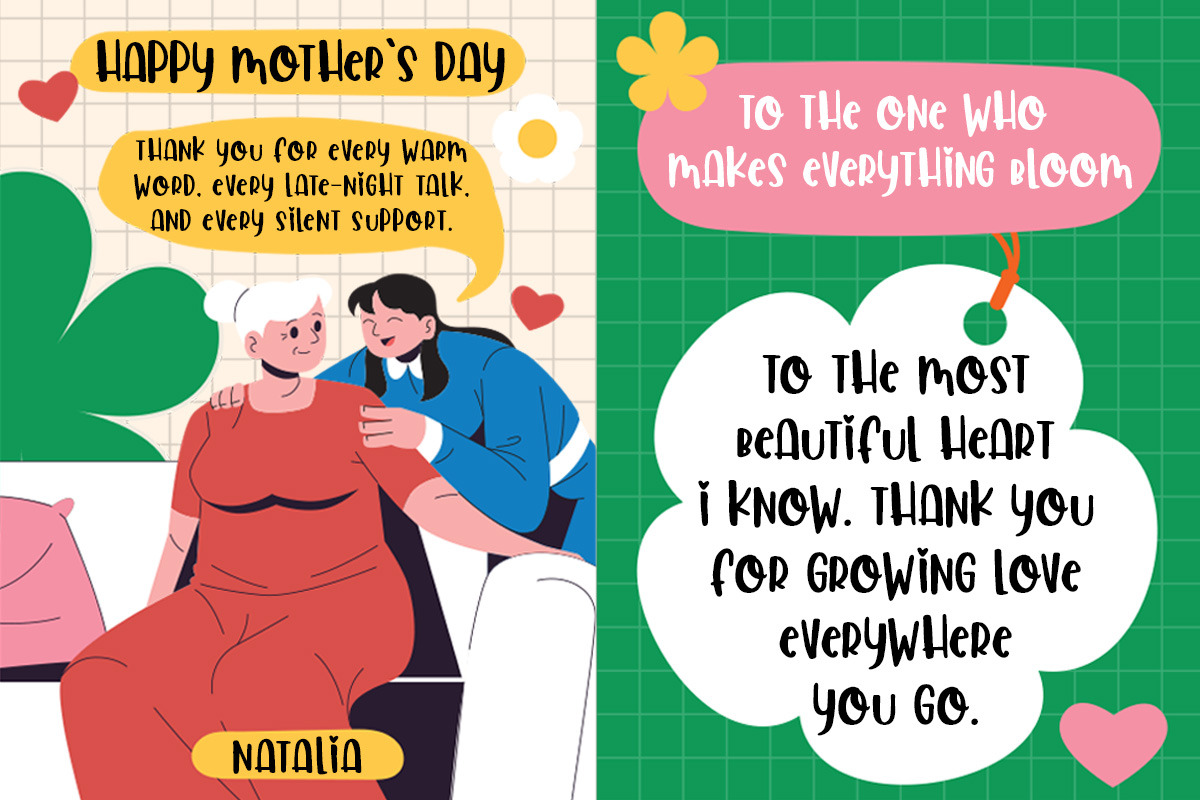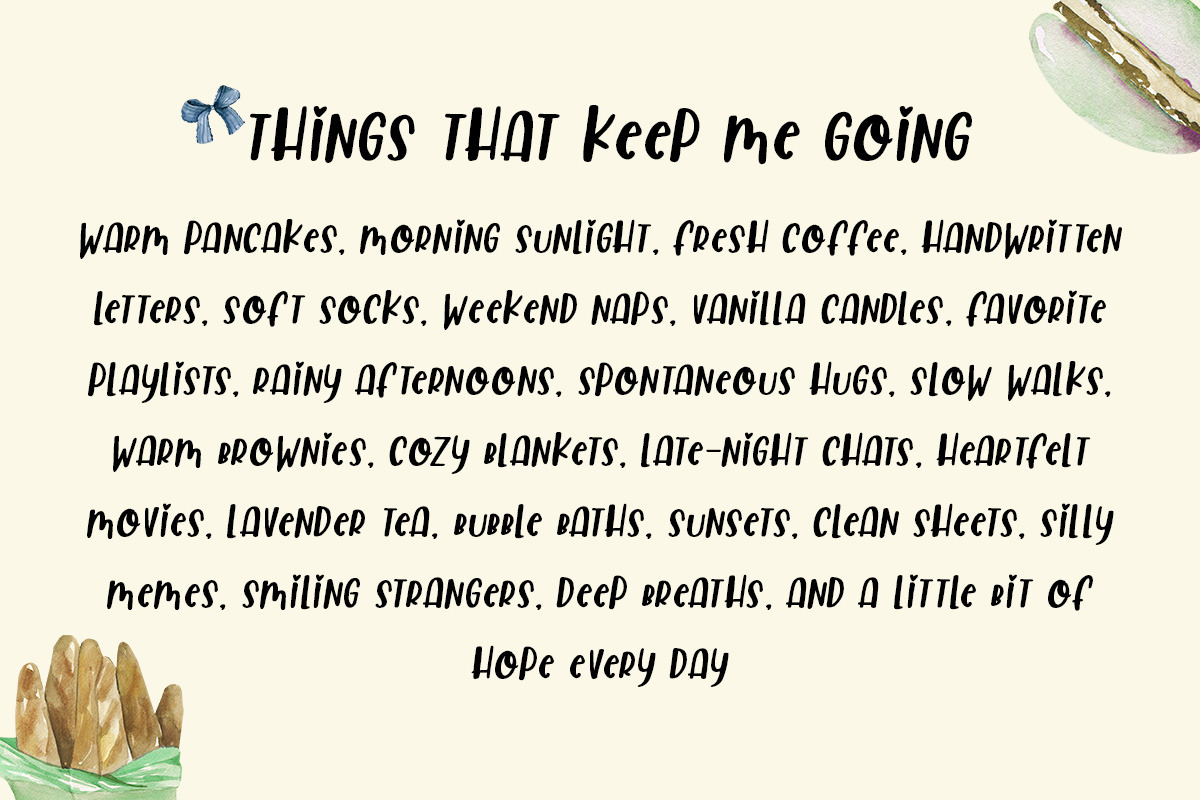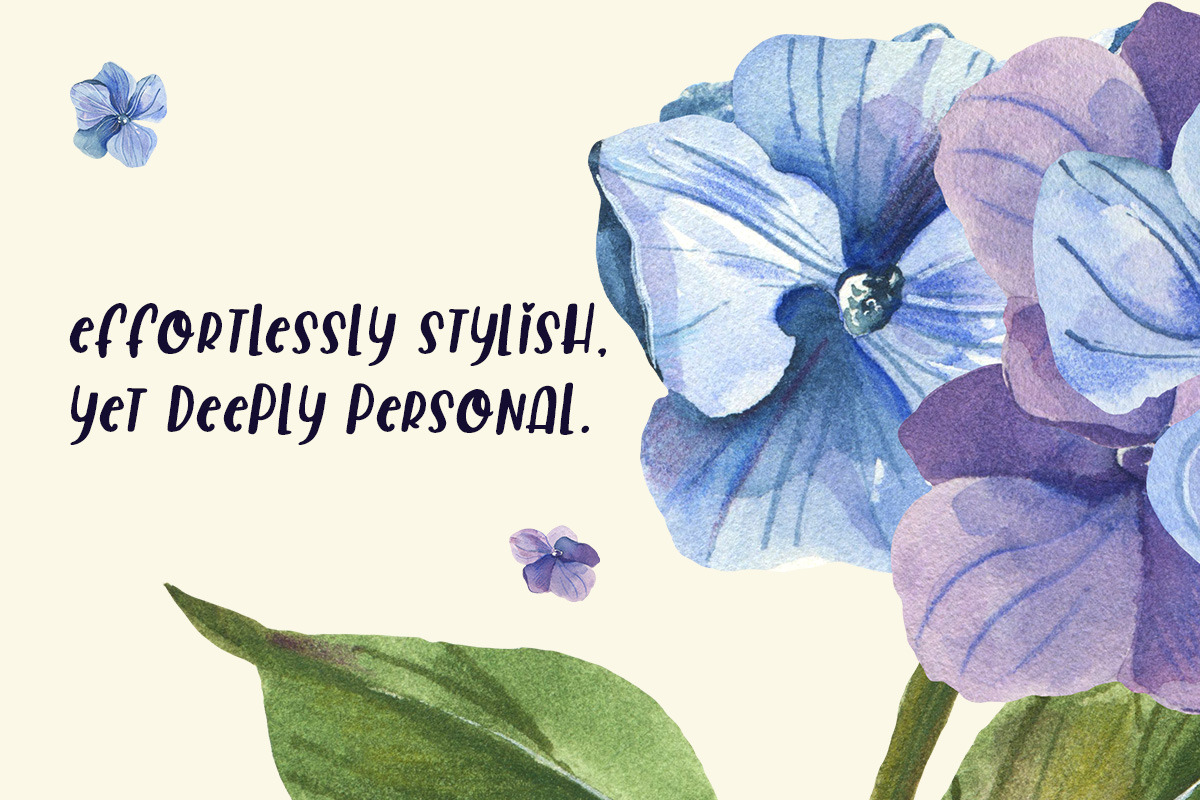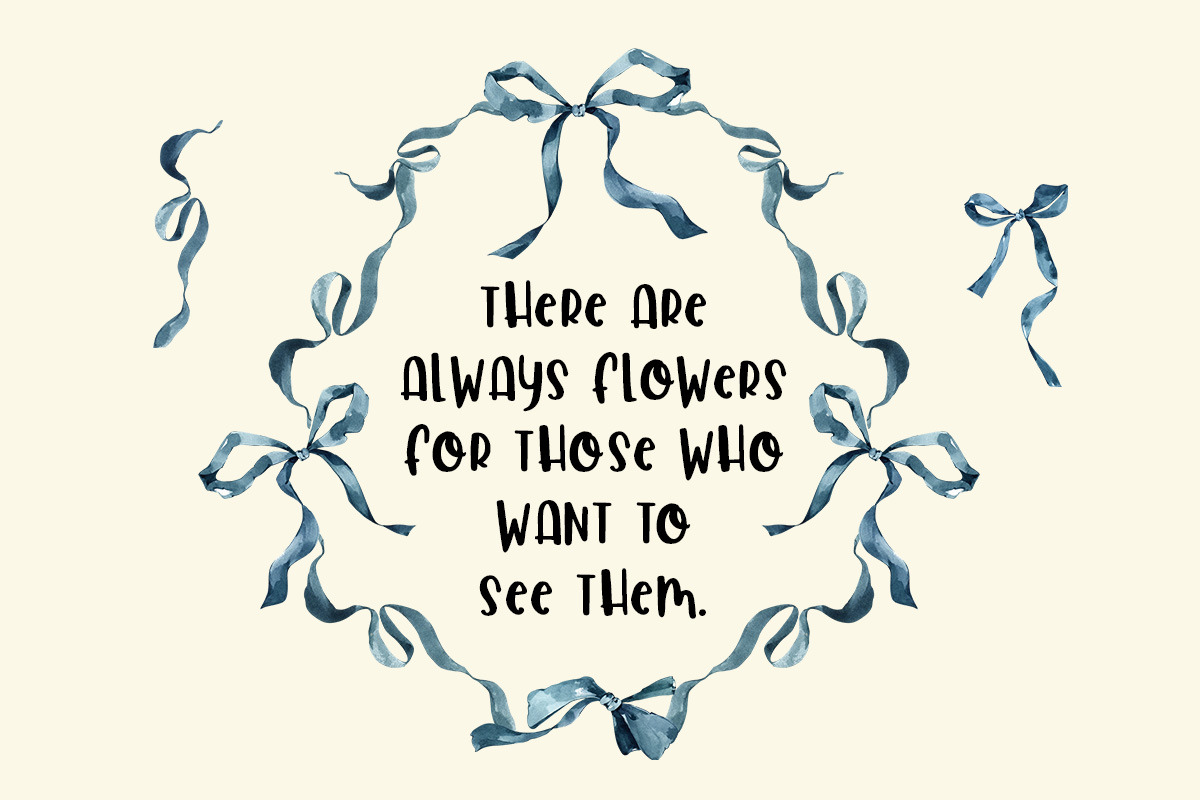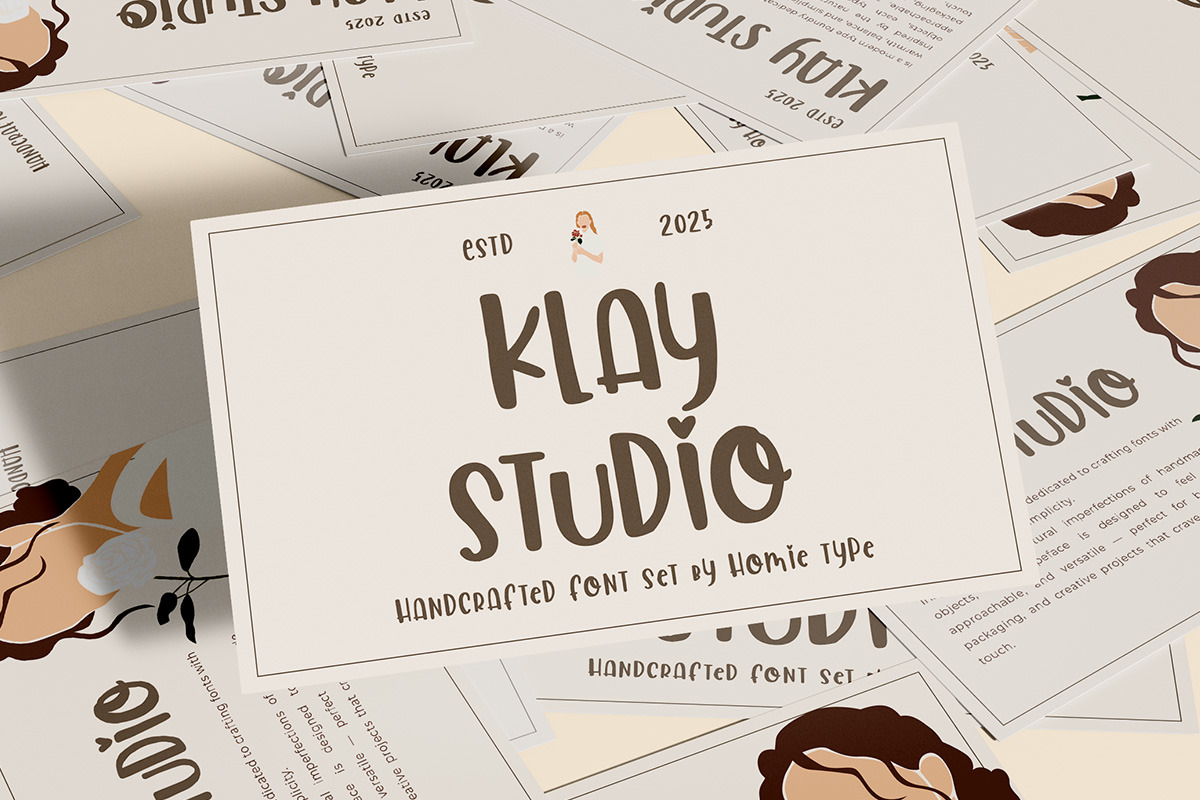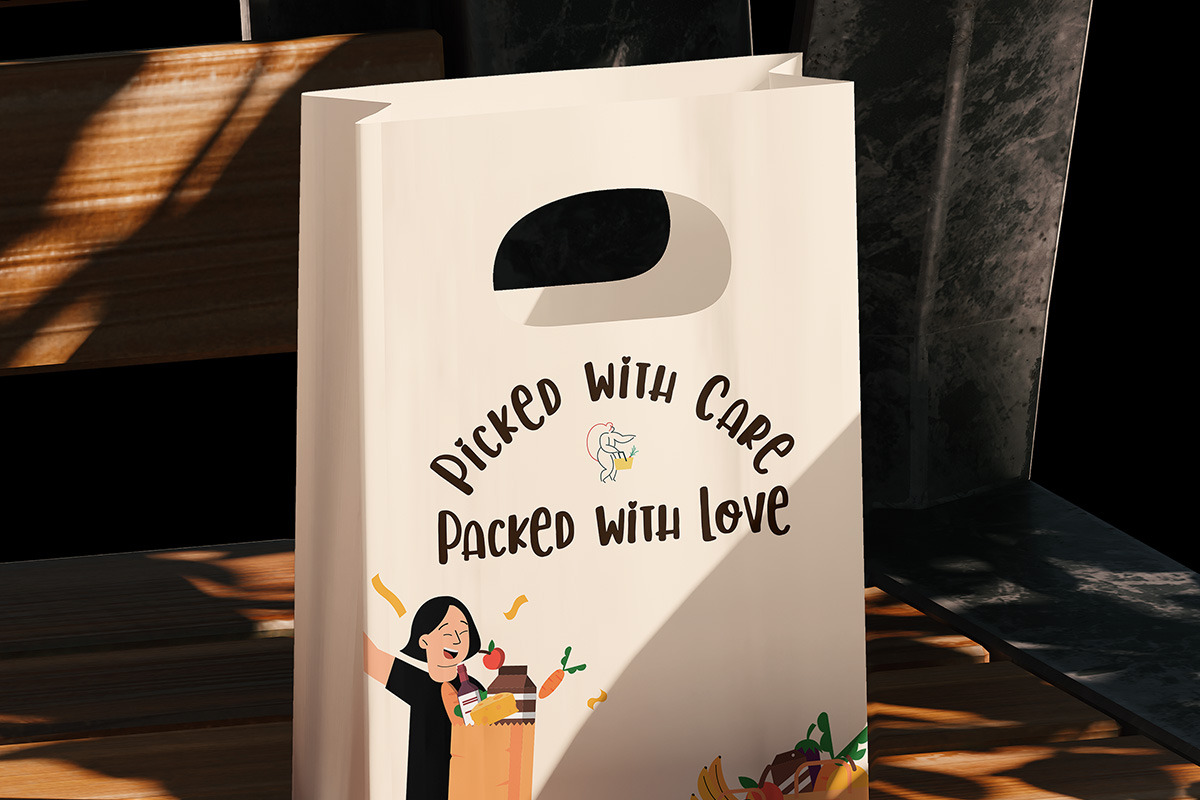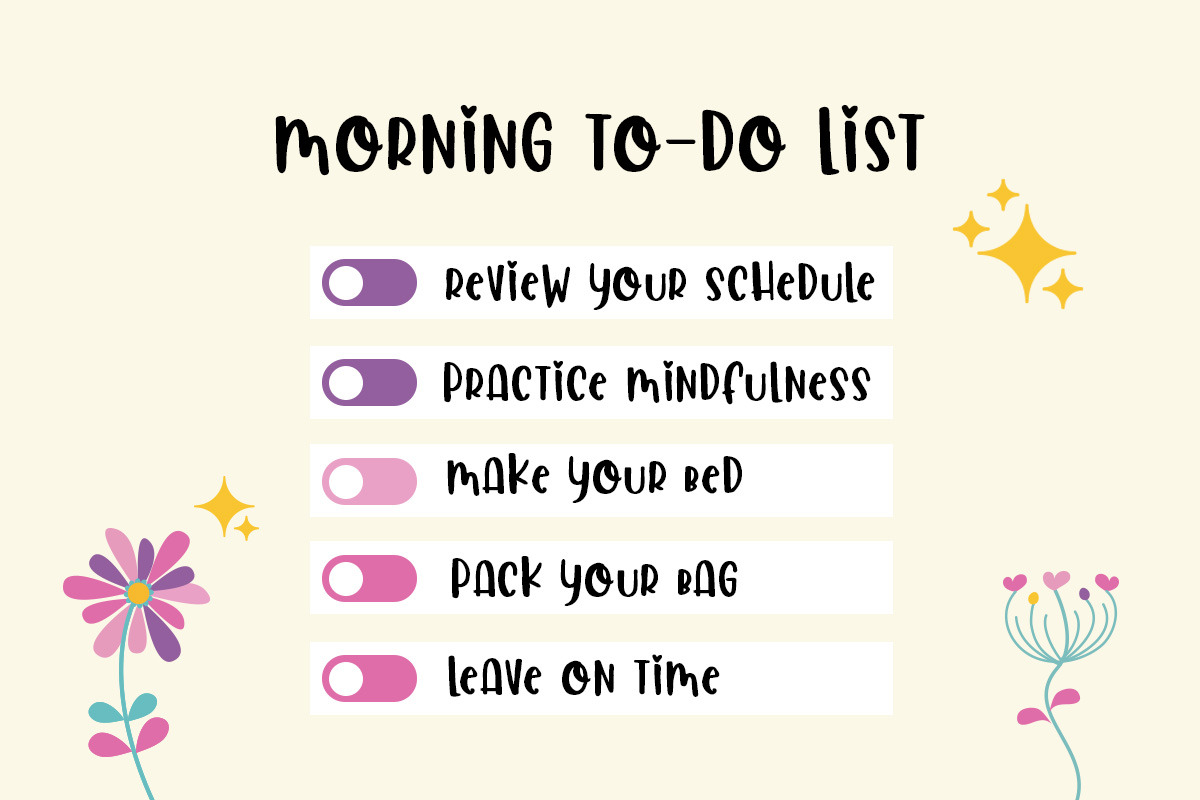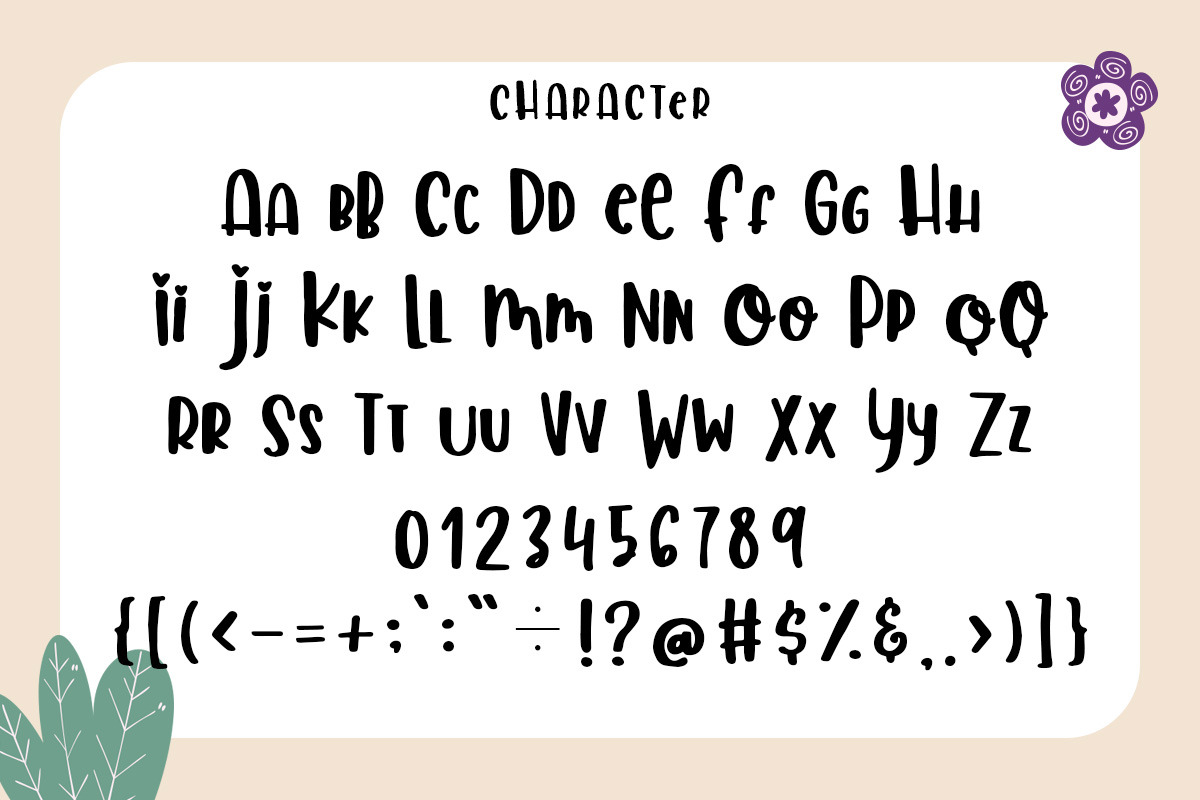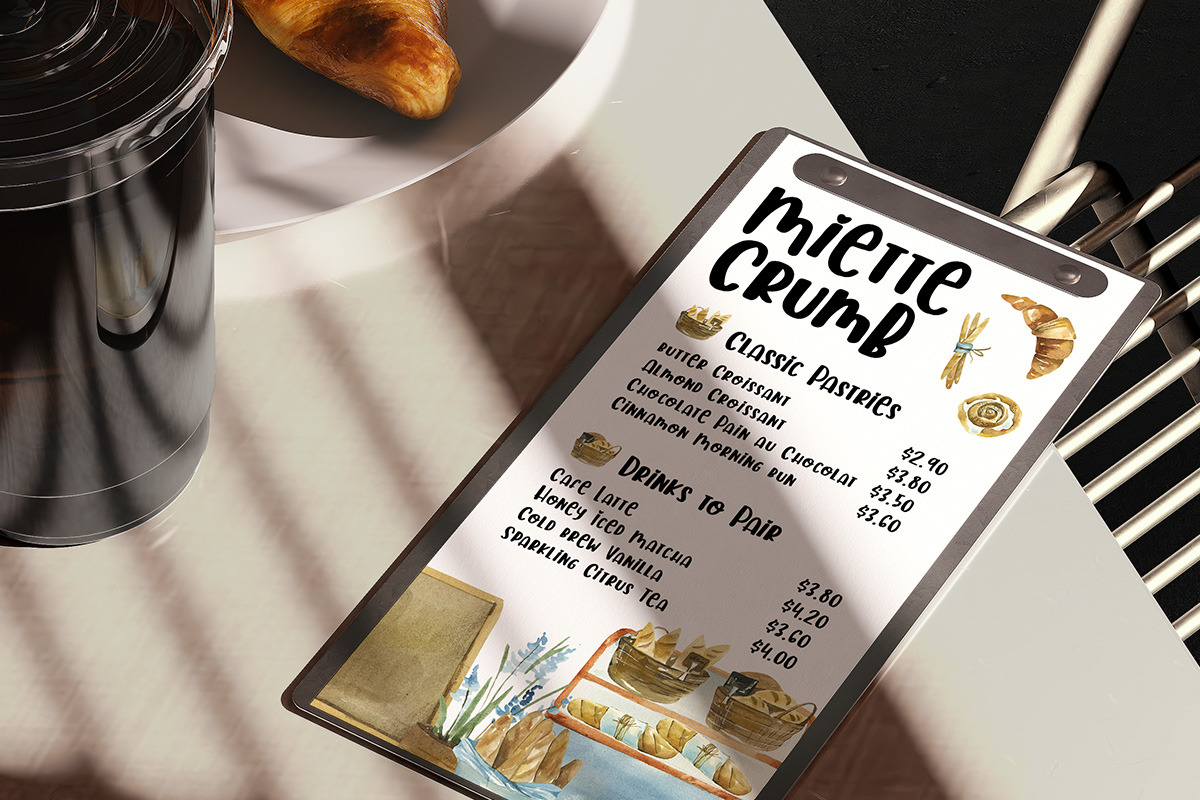
Glowie - Cute Aesthetic Handwritten
Glowie is an adorable handwritten font that brings charm and personality to your projects. With its playful curves and subtle aesthetic style, Glowie is perfect for creating beautiful designs that feel authentic and creative. Ideal for feminine branding, social media posts, product packaging, invitations, and more, this unique script adds a touch of joy and warmth to every word. Let your designs bloom with Glowie — the font that makes everything look effortlessly cute and stylish.